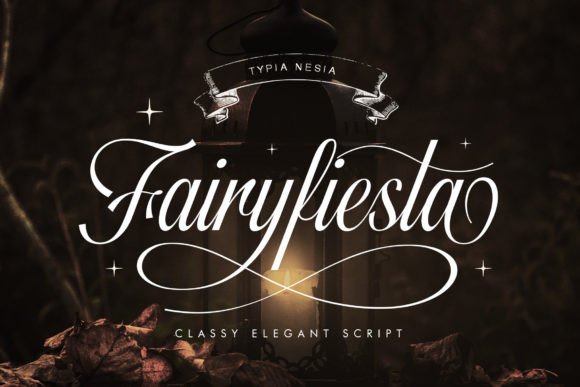
Introducing the Fairyfiesta Font - a classic, elegant copperplate calligraphy script font that embodies beauty, luxury, and royalty. This font is perfect for those looking to add a touch of sophistication and class to their projects.
Created by Typia Nesia, the Fairyfiesta Font comes with glyph variations such as Ligature, Alternate, and Swash. These variations allow you to combine them to create a perfect typography design that is unique to your project.
Whether you are working on a luxury logo and branding, a classy editorial design, or a woman's magazine, the Fairyfiesta Font is the perfect choice for you. It is also an excellent option for cosmetic brands, fashion promotions, art galleries, museums, boutiques, stationery designs, blog designs, modern advertising designs, card invitations, art quotes, home decor, book/cover titles, and special events.
One of the best things about the Fairyfiesta Font is that it is PUA encoded, which means you can access all of the glyphs and swashes with ease. This feature makes it even easier for you to create beautiful and eye-catching designs without any hassle.
In summary, if you are looking to add a touch of elegance and luxury to your projects, the Fairyfiesta Font is the perfect choice for you. With its classic, sophisticated design and glyph variations, this font is a must-have for any designer or creative looking to elevate their work to the next level.